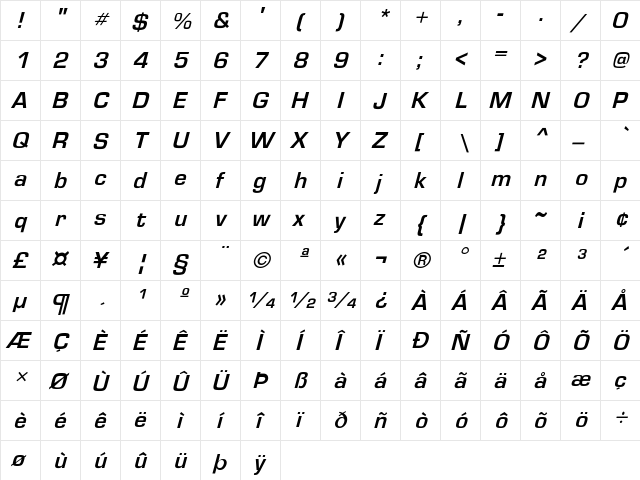
EurostileObl-Bold Regular
Design Context for EurostileObl-Bold Typeface
EurostileObl-Bold takes a measured approach to typography — its balanced proportions and neutral character make it a reliable workhorse for both digital and print work. The heavy weight commands attention and anchors typographic hierarchies.